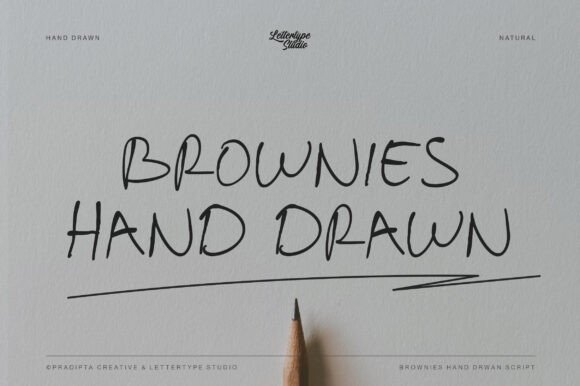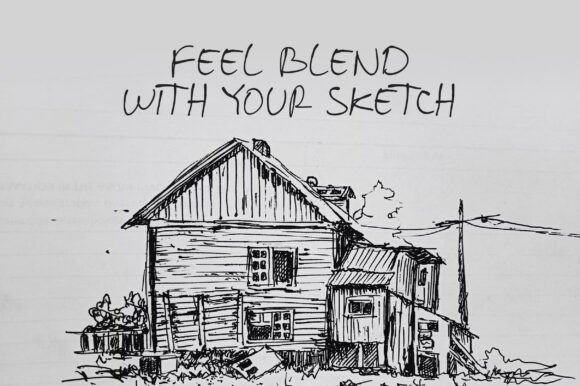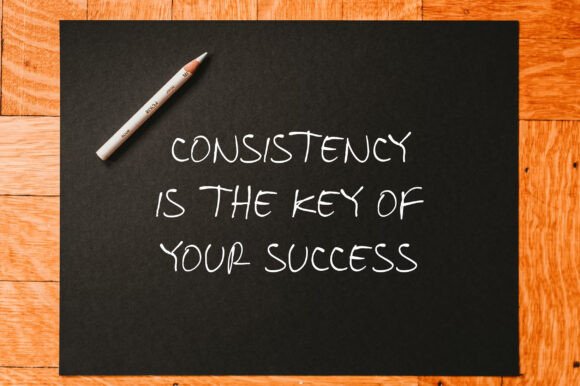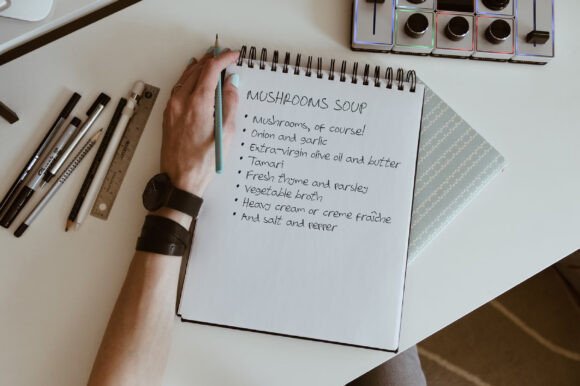
Brownies Handdrawn Font
About the Brownies Handdrawn Font
Unleash your creativity with Brownies Handdrawn Font, a versatile font perfect for a wide range of applications. Brownies Handdrawn is a script handwriting fonts that seamlessly blend natural, bold, and quote-worthy styles, perfect for adding a personal touch to your designs. These typefaces emulate authentic handwriting, offering a spectrum from delicate swashes to robust strokes, ideal for branding, invitations, and expressive typography.
Brownies Handdrawn excels in applications requiring a strong, personable touch, such as logos, short headlines, and social media graphics. Its expressive nature makes it ideal for packaging showcasing artisanal products or boutique brands. Avoid using it for lengthy body text or UI elements; the handcrafted irregularity makes it less legible in continuous blocks of text.
Pairing Brownies Handdrawn with a clean sans-serif like Montserrat for body copy creates a balanced contrast, allowing the script font to shine in headlines while maintaining readability. Alternatively, a geometric sans-serif like Futura would lend a modern edge to projects emphasizing a sophisticated yet approachable feel. For a more traditional pairing, consider a classic serif like Garamond to add a touch of formality and refine the overall aesthetic.
The font’s core personality is bold and friendly, conveying authenticity and warmth. It’s well-suited to brands projecting a handcrafted, personal, or slightly whimsical image, but might feel out of place in contexts demanding strict formality or minimalism.
Brownies Handdrawn Font Usage Examples
Brownies Handdrawn Font Example